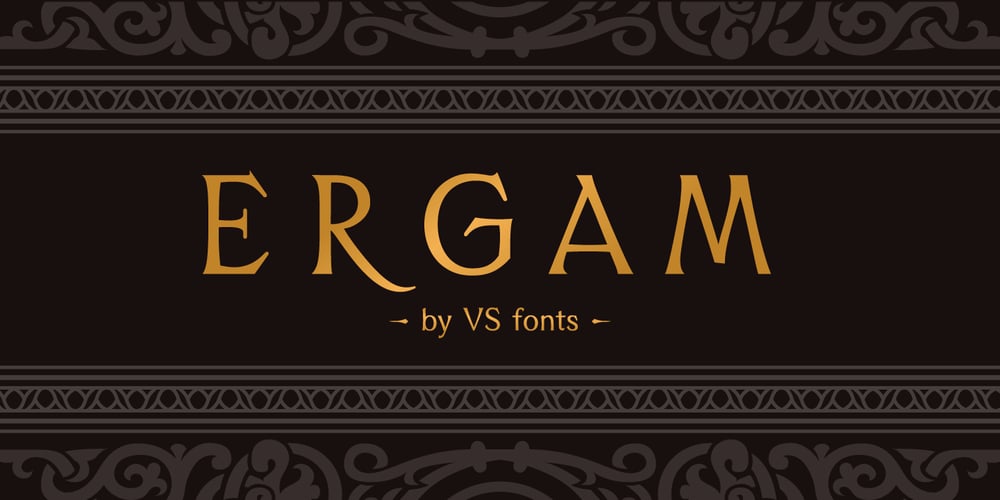
Ergam Font Family was designed by Vasil Stanev and published by VSF. Ergam contains 1 styles and family package options. Ergam is a text font that goes even further than the average language support. Designed with great attention to detail and without cutting corners, it should serve you as a robust workhorse with a touch of elegance.